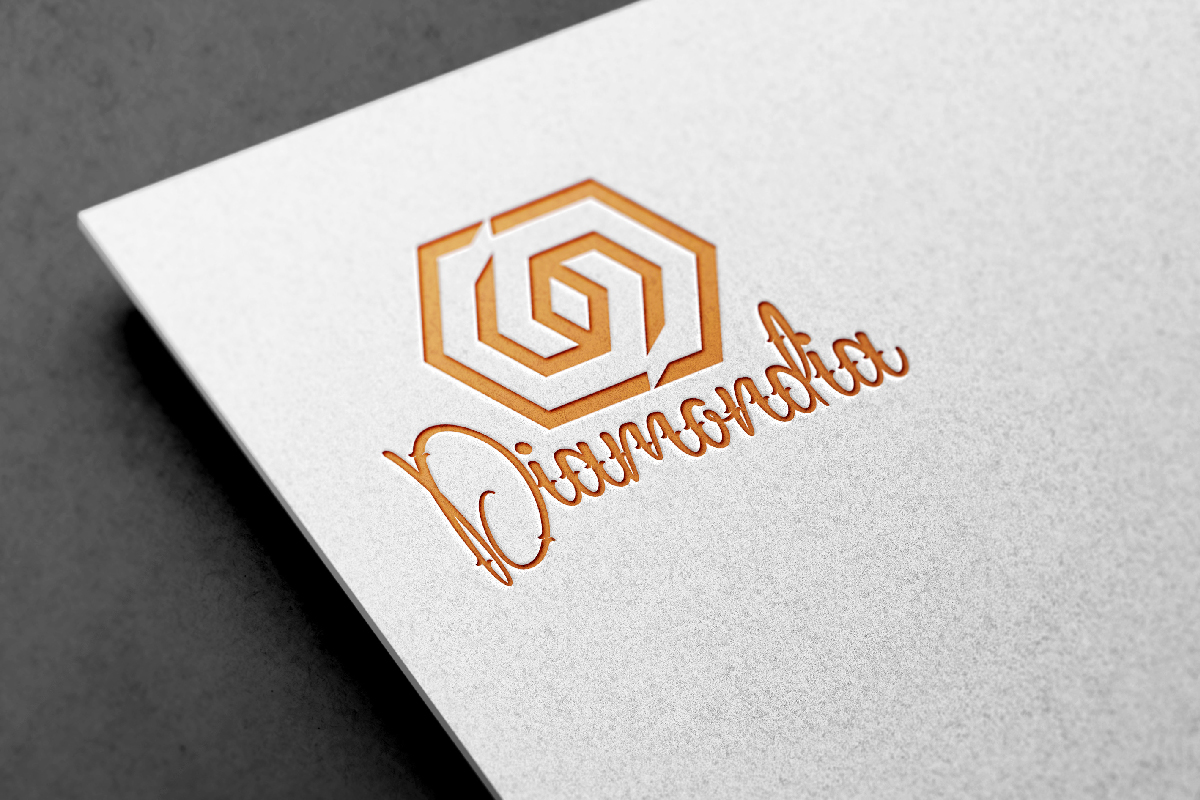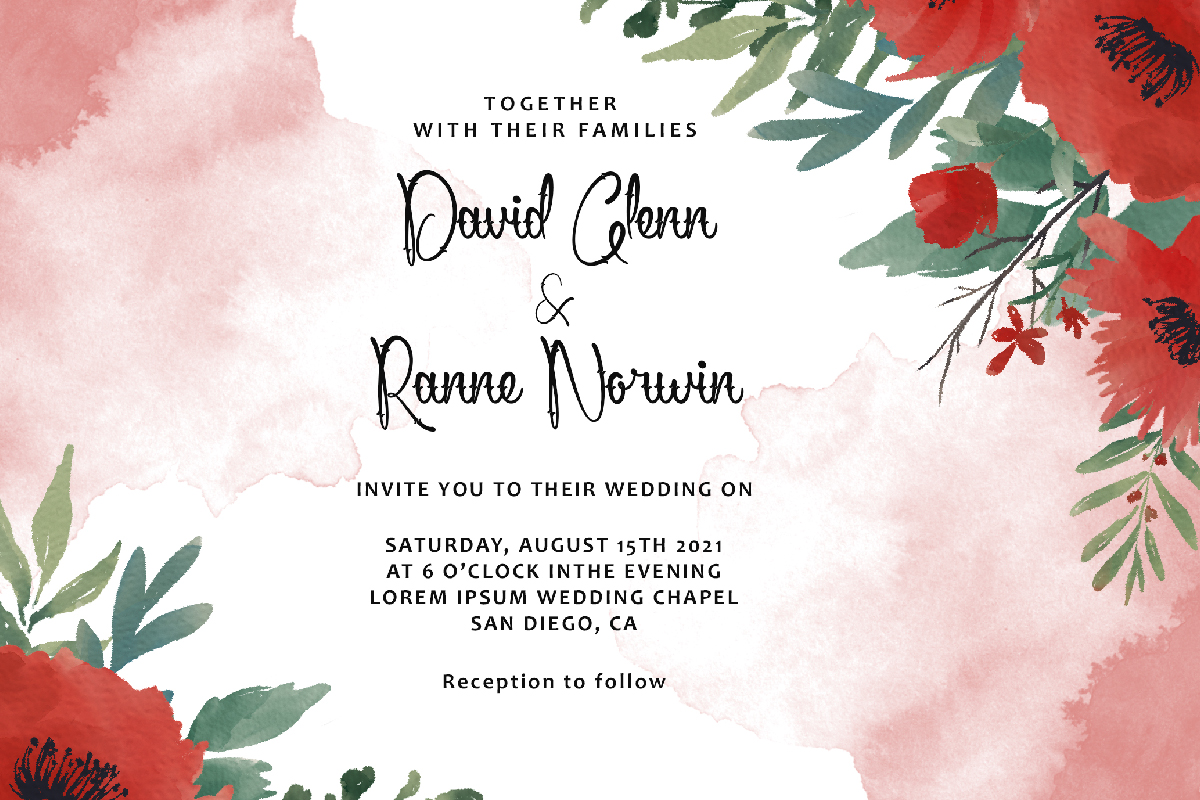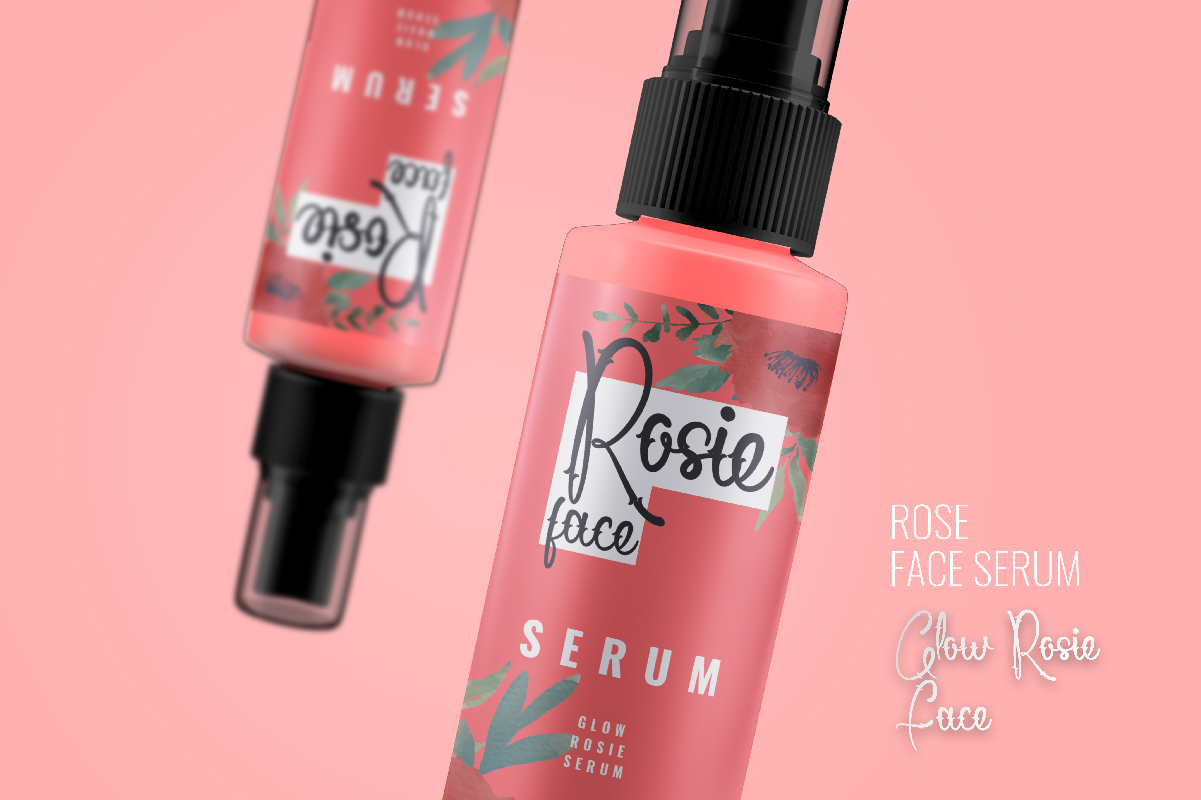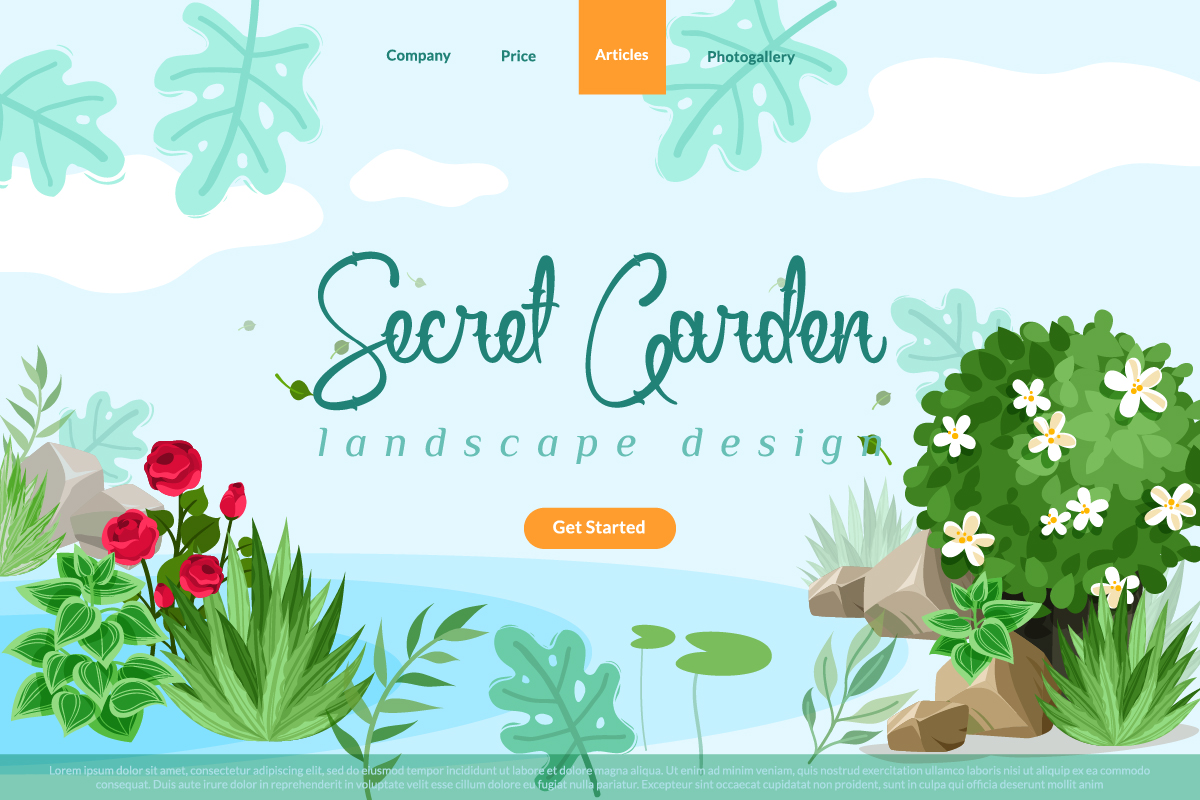
Spiked Font
Spiked Script Font
This font will be great for any projects (require extended license) including: branding, decorative text, signage, flyer, video tittle etc. The theme style of the font is playful, stylish and unique handwriting style. The industries/businesses that will be match for this typeface: houseware, cosmetic, events, artist, cartoon, café, movie, school, etc